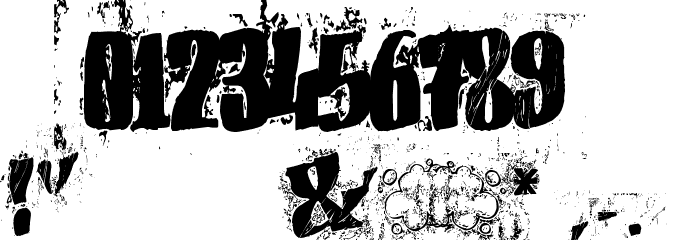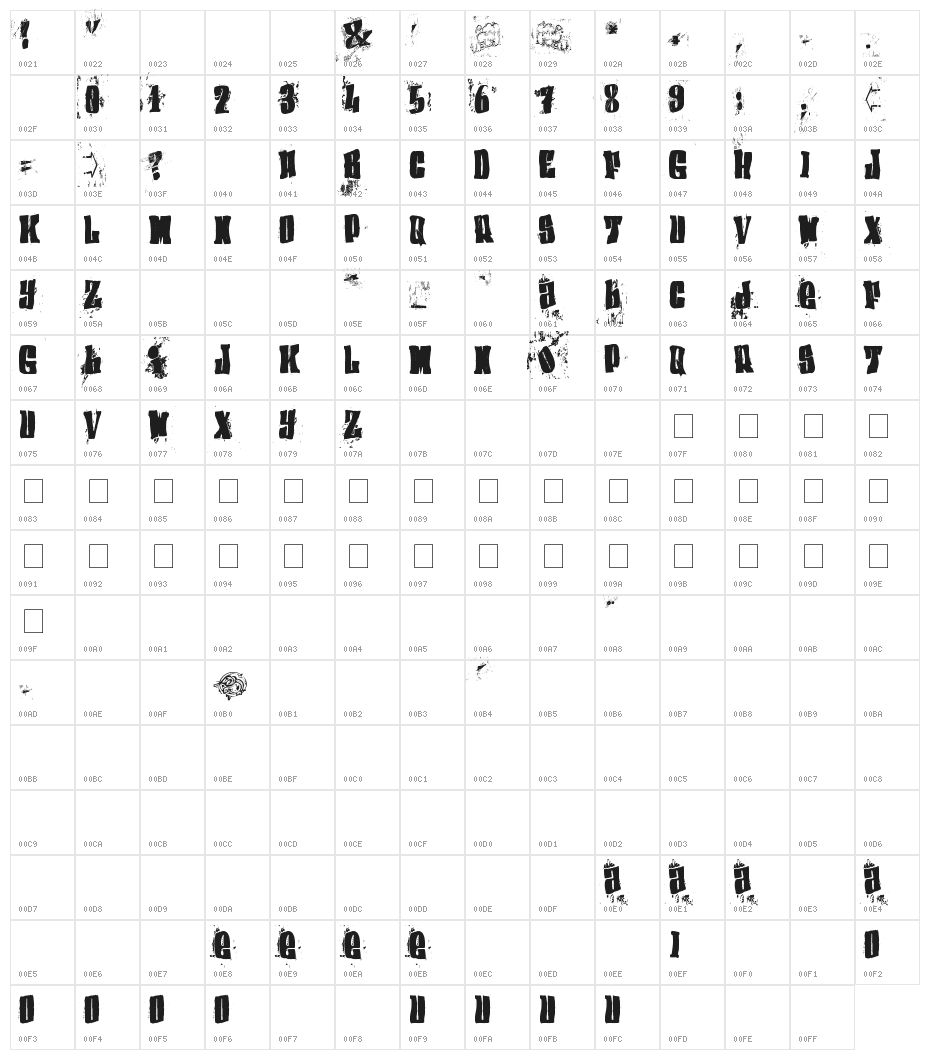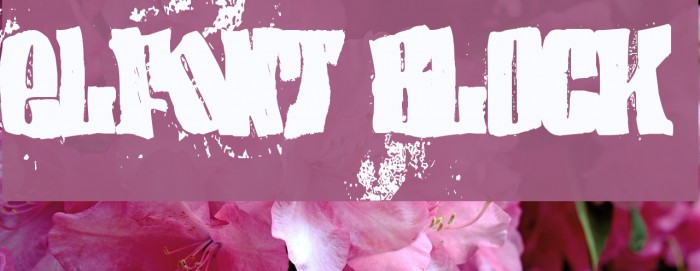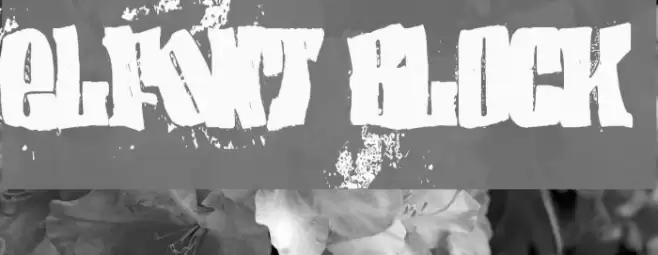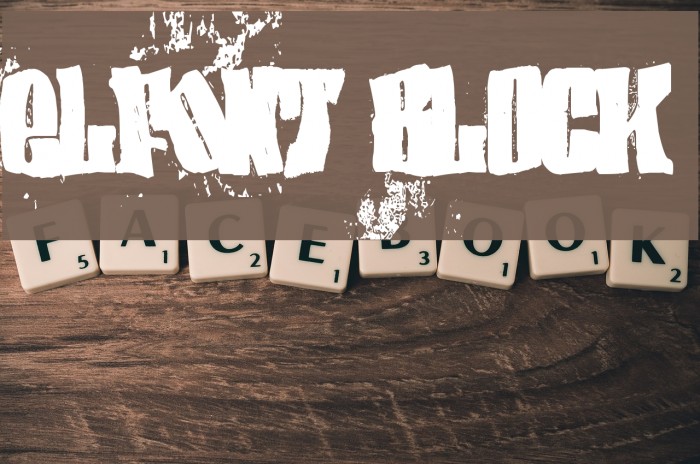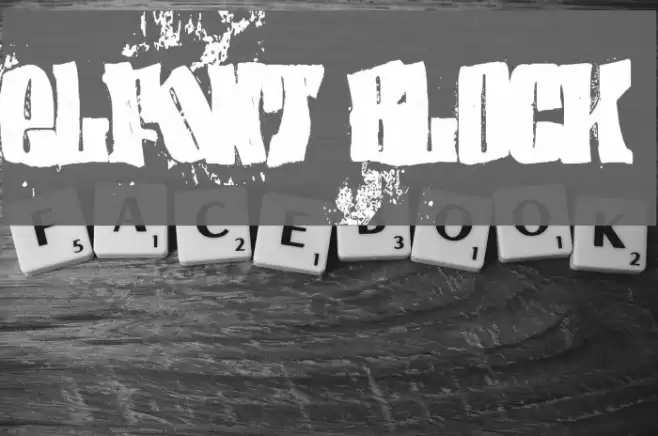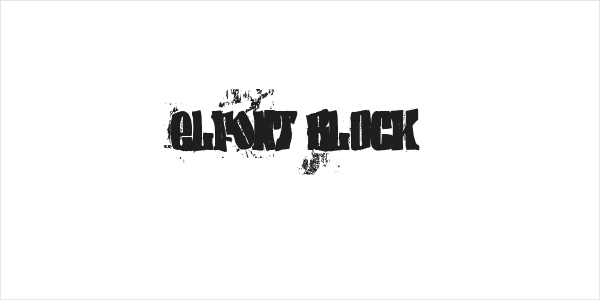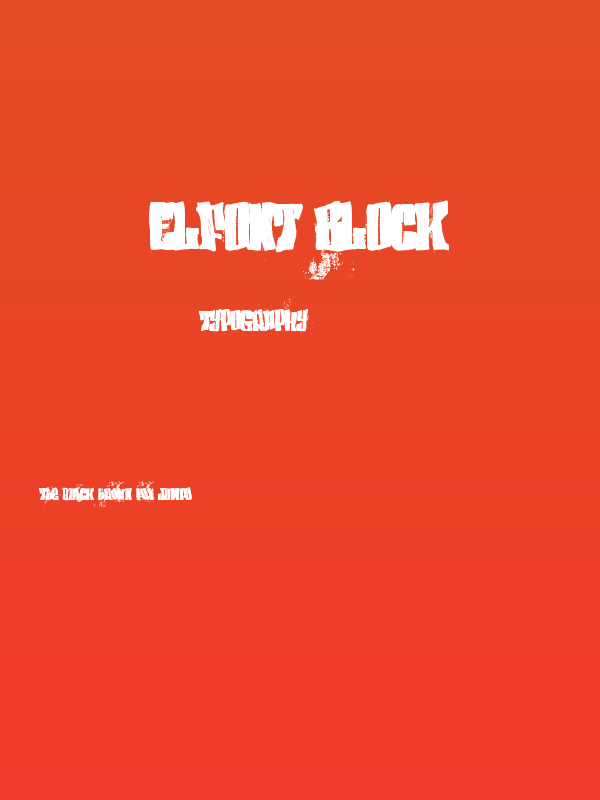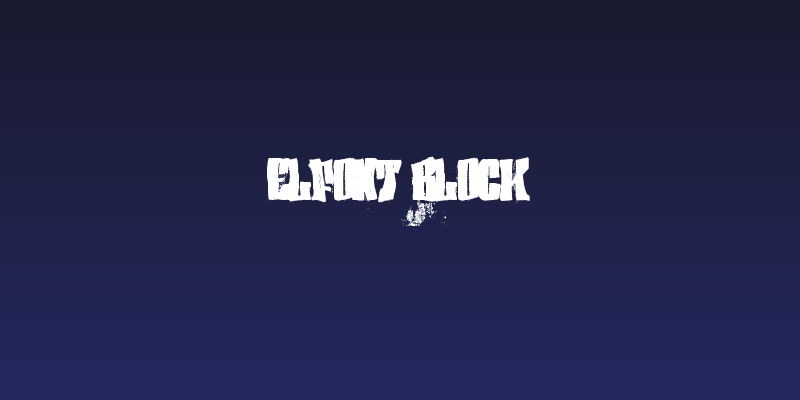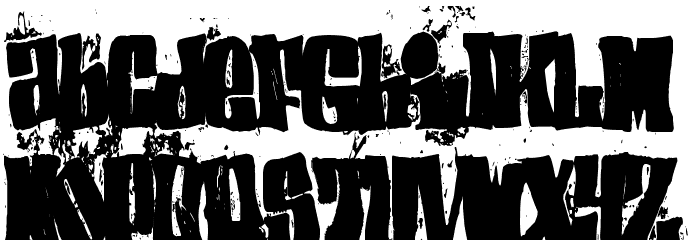
elfont BLOCK Font
elfont BLOCK Description
This font features a bold and distressed style, characterized by its thick, blocky letters with a rough, textured appearance. The uppercase and lowercase letters share a similar rugged aesthetic, with each character appearing as if it has been weathered or eroded over time. The numbers and special characters maintain this distressed look, adding to the font's overall gritty and urban feel. The design is highly decorative, making it stand out with its unique, grunge-inspired style. The font's heavy weight and irregular edges give it a strong presence, suitable for projects that require a bold statement.
ELFONT-BLOCK UPPERCASE
ELFONT-BLOCK LOWERCASE
ELFONT-BLOCK OTHER CHARS
| Overall Style | Grunge, Urban, Distressed |
| Proposed Projects | Ideal for posters, album covers, streetwear branding, and any project needing a bold, gritty aesthetic. |